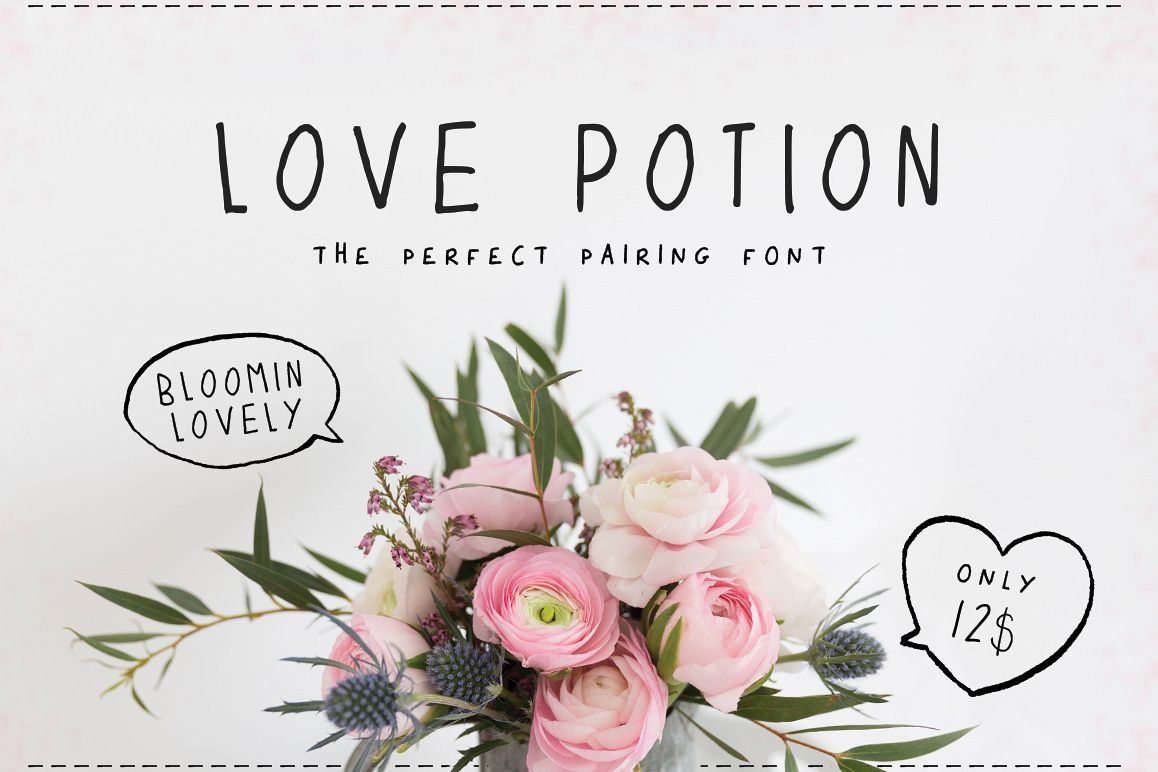
Introducing the 'Love Potion' font, a fabulous new offering that works well for all areas of design! Looking for a font to pair with a stunning script? Or want to label something clearly but don't want to use a boring font? Then this beauty is for you!Use all caps for a tall version and lowercase for a small caps version. And most of all - Enjoy!Whats Included: